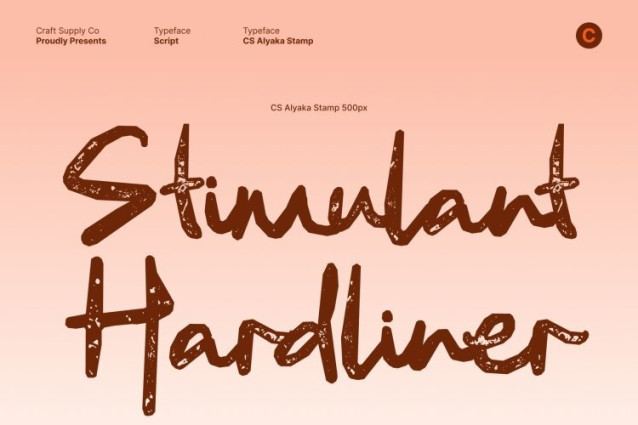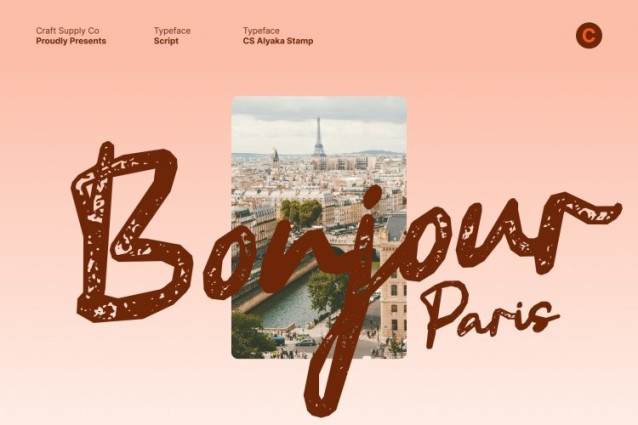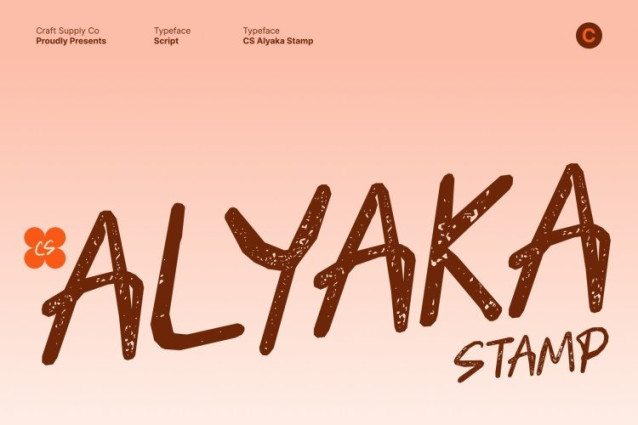
CS Alyaka Stamp Font
CS Alyaka Stamp Font This is a handwriting script font created to capture the authenticity, warmth, and spontaneity of natural pen strokes. Inspired by real handwritten motion, each letter reflects a smooth, flowing rhythm that feels personal, expressive, and genuinely human. The result is a typeface that communicates sincerity, creativity, and emotional connection with ease.
Organic Flow with Casual, Friendly Personality
The letterforms feature organic curves and natural connections that enhance handwritten realism. Subtle variations in stroke weight and form prevent repetition and add visual depth, allowing the font to feel relaxed, unpolished, and full of character. This casual personality makes perfect for friendly messages and storytelling-driven designs.
Stamp Texture for Vintage Character and Artistic Depth
The stamp effect introduces gentle imperfections, textured edges, and a slightly worn appearance that adds artistic depth and vintage charm. This texture enhances the handmade feel, evoking printed ink and traditional crafting processes while preserving the font’s warmth and readability.
Ideal for Greeting Cards, Invitations, and Casual Branding
Perfect for greeting cards, invitations, journals, packaging, social media graphics, and casual branding, this font works beautifully for personal events, lifestyle brands, small businesses, and creative projects. Its natural handwritten style combined with textured character makes every design feel heartfelt, expressive, and genuinely crafted.